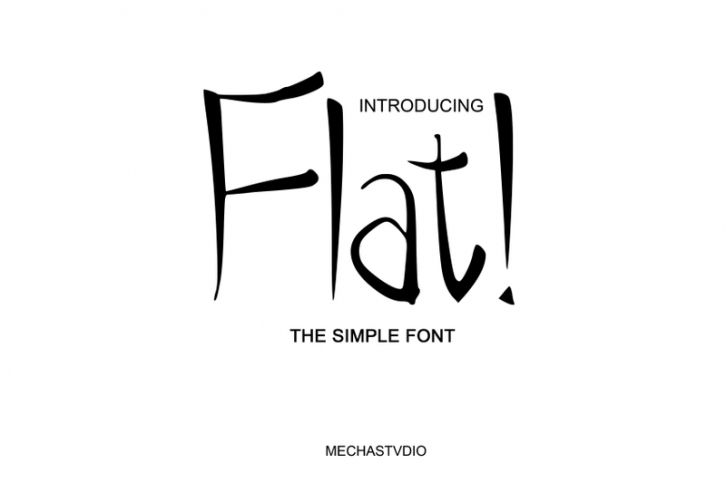
Flat! is a thin and cool script font. It has a classy, elegant, and modern look, perfect for logos, branding, invitations, stationery, wedding designs, social media posts, and more.